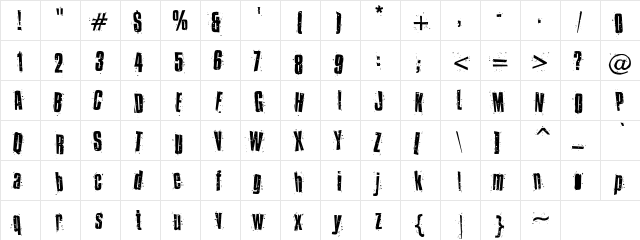
Quick Job Regular
Design Context for Quick Job Typeface
Quick Job is a composed and adaptable typeface that performs quietly and consistently across a wide range of design contexts.